An alphabet of typefaces
SEA has created a range of 26 notebooks, each featuring one letter – from A-Z – set in a different typeface from the Monotype library.
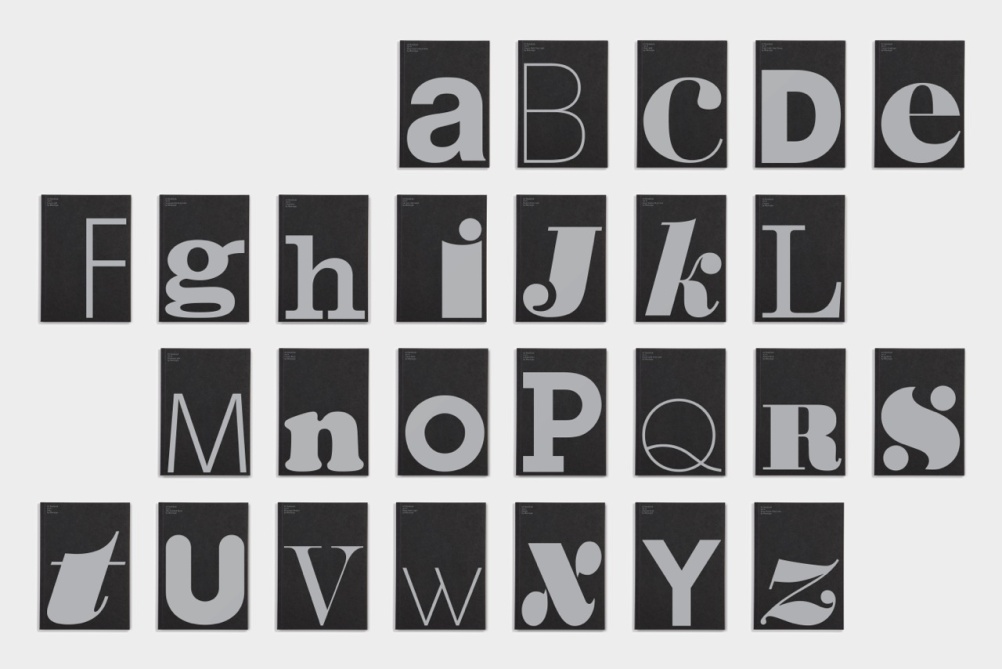
The notebooks have been created to mark the one-year anniversary of online shop FAO, with Monotype commissioned to create a bespoke product.
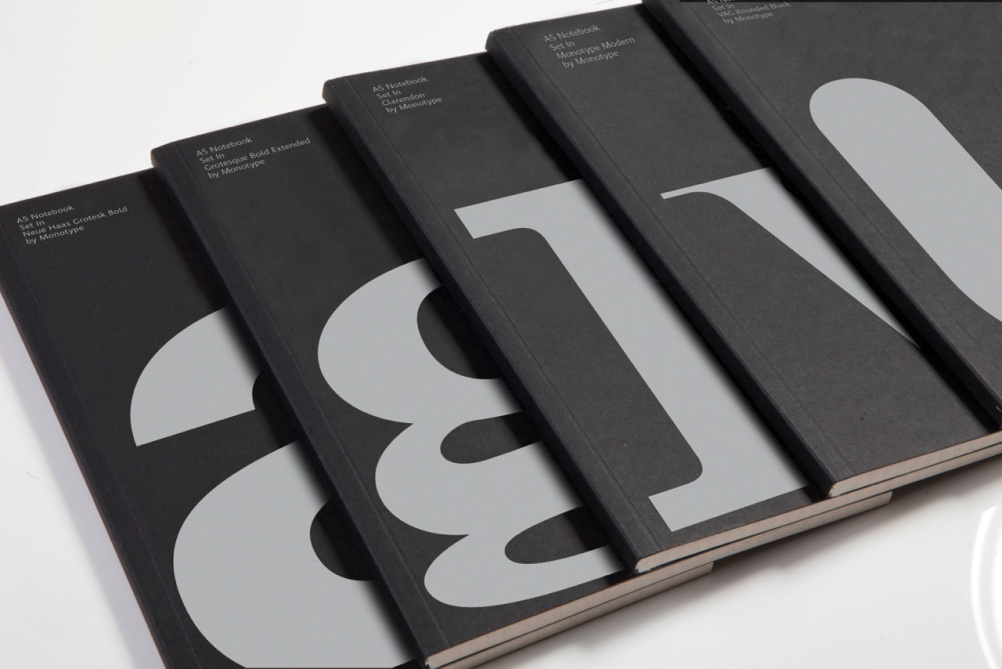
SEA delved into the Monotype library to select the typefaces, which are presented in a range of upper and lower cases.
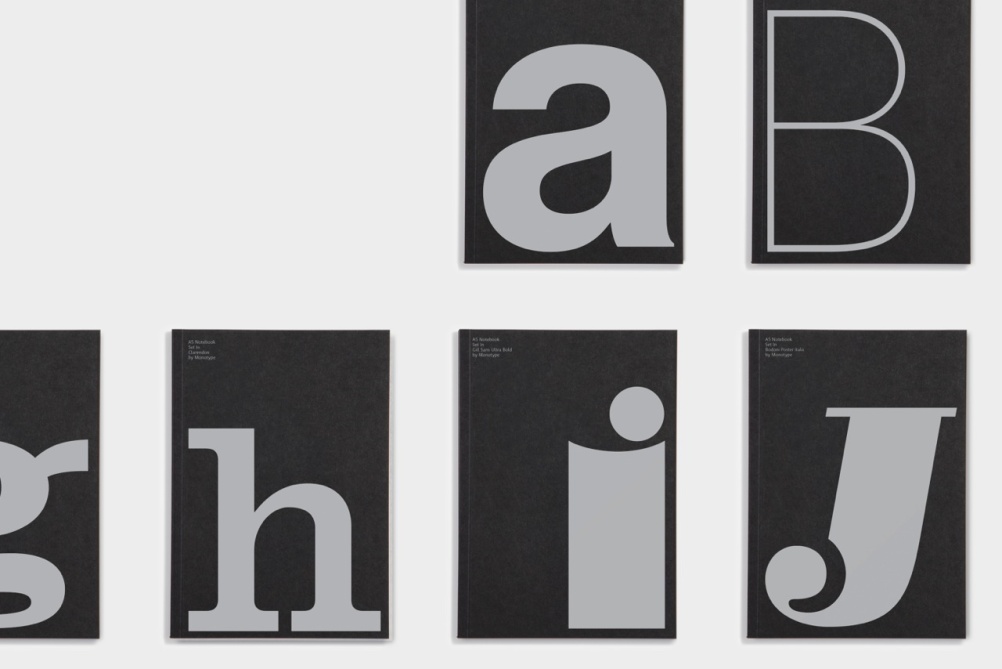
They range from the familiar (a Clarendon ‘h’, a Johnston Bold ‘Y’) to the lesser-known.
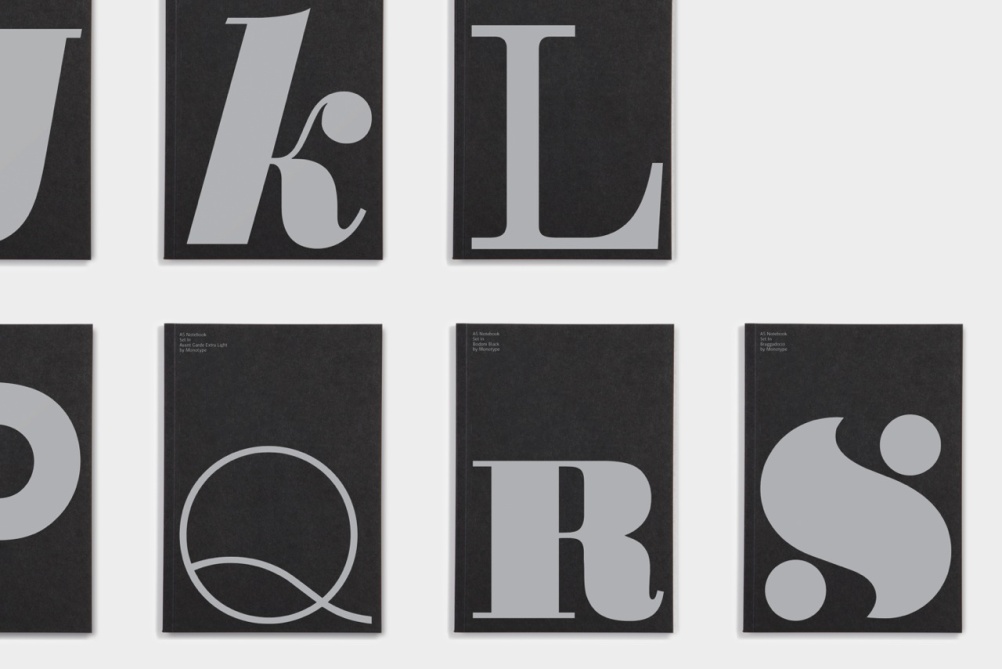
We’re particular fans of the ‘S’ in Braggadocio, which was created in 1930 by W.A. Woolley, and the use of Gill Sans Ultra Bold on the ‘i’, with its charming off-centre dot.